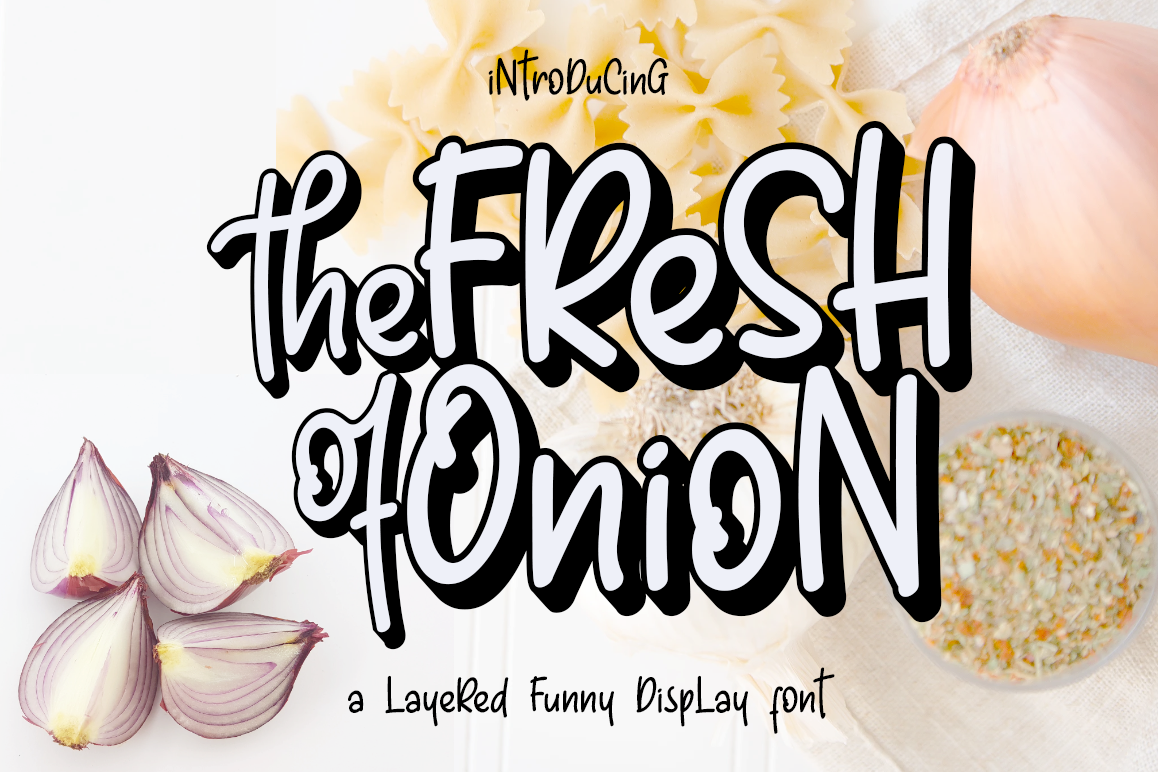
Fresh Onion // Layered Funny Display Font
Fresh Onion
Fresh Onion Extrude
I would like to present my new collection font with handmade style.
Fresh Onion comes with natural taste of handwritten. with the real hand done I created them, also additional Extrude for a layered font to make good sensation feel.
When you type with this font, I believe you will enjoy the sensation of the natural feel of this font, equipped with ligatures and extrude features make the display even stronger for your projects such as posters, logos, advertisements, book covers and all brands for your requirement.
• Extrude for a second layer font